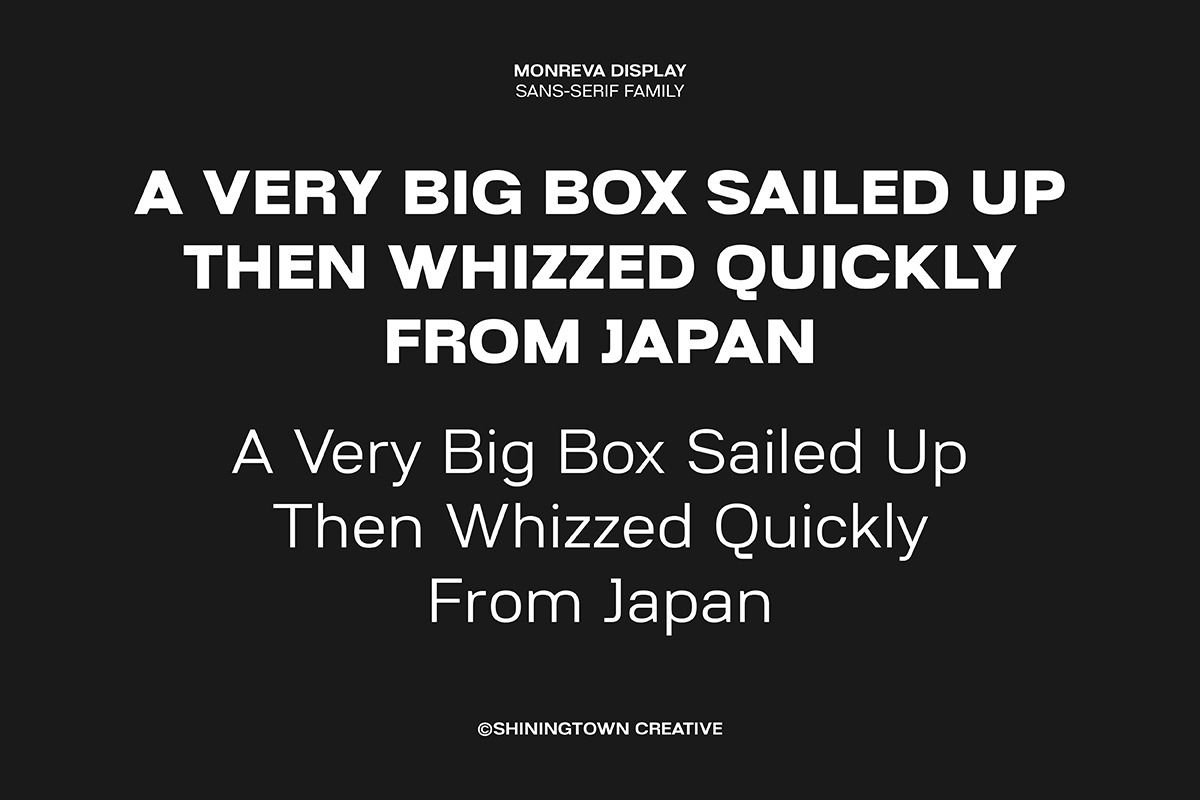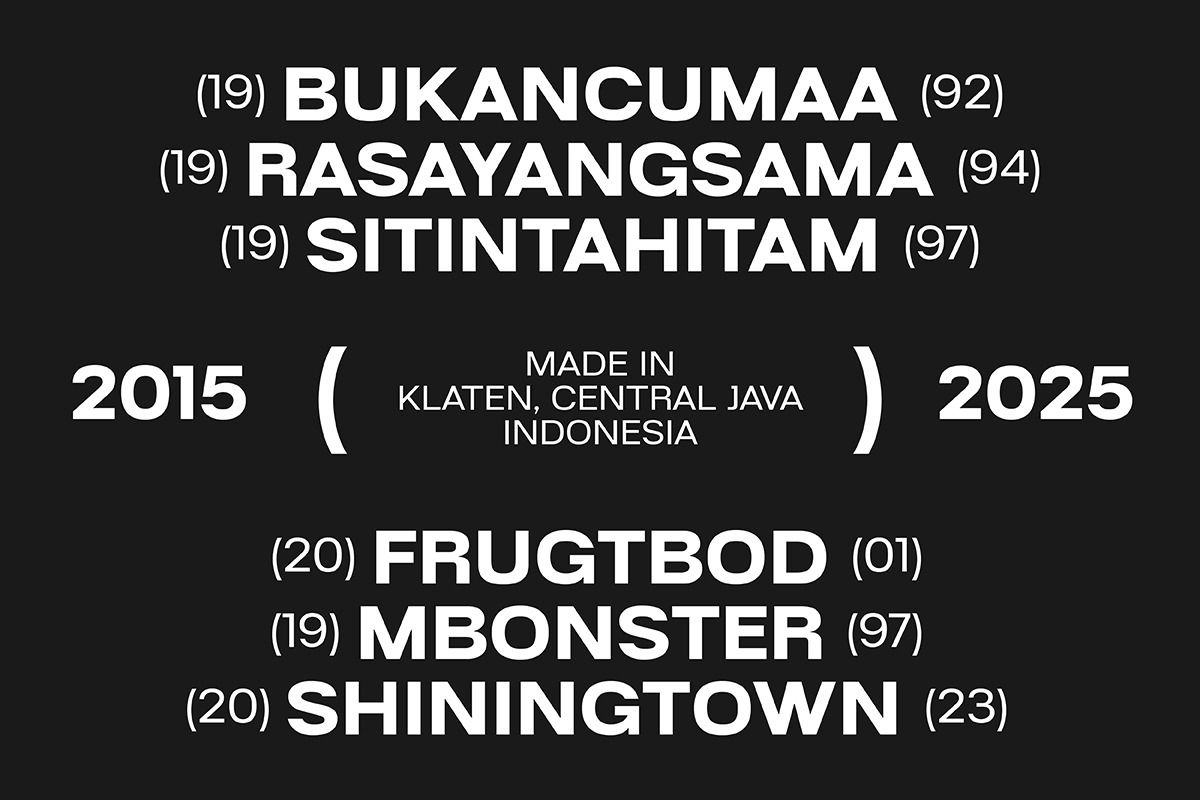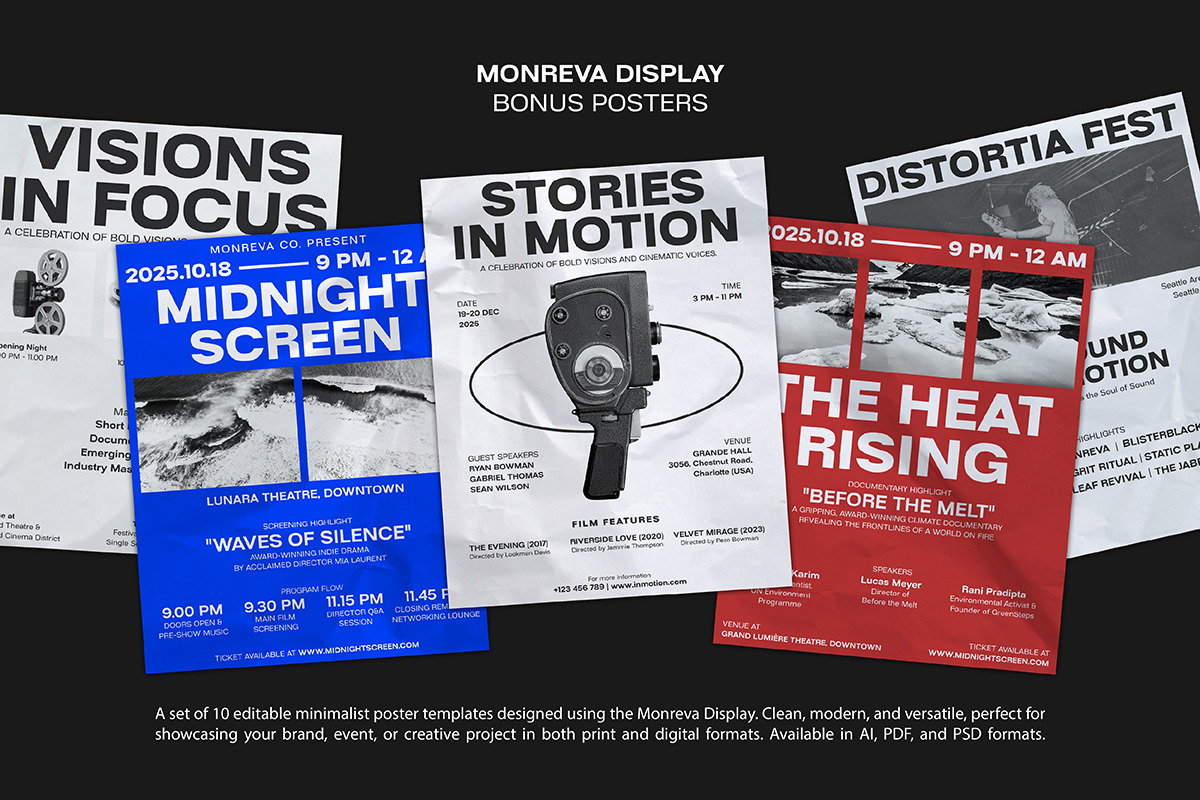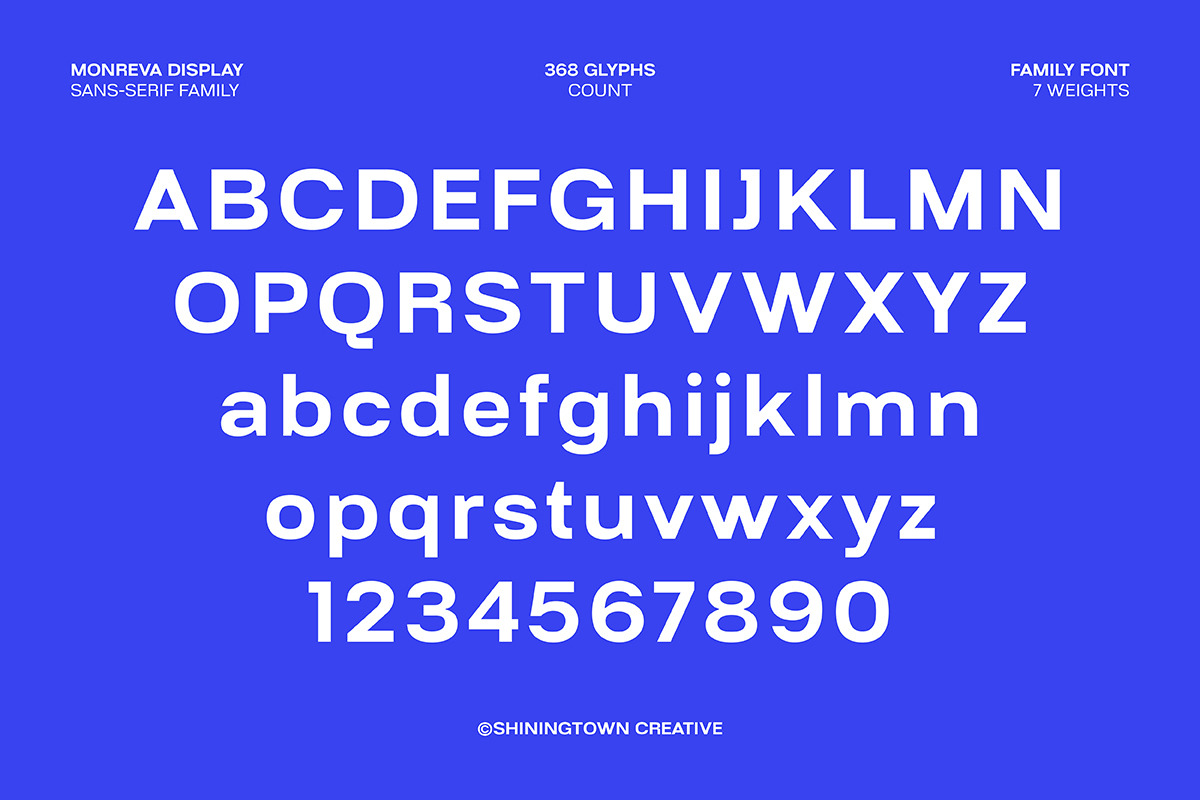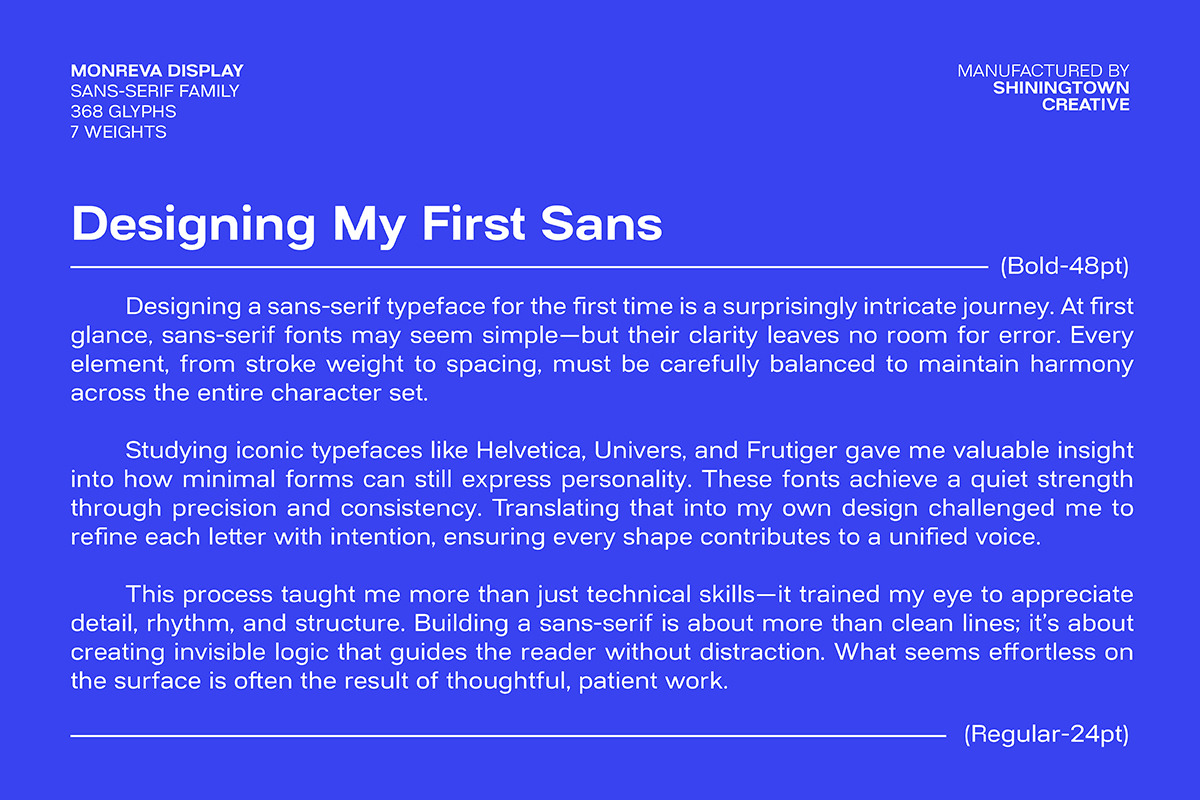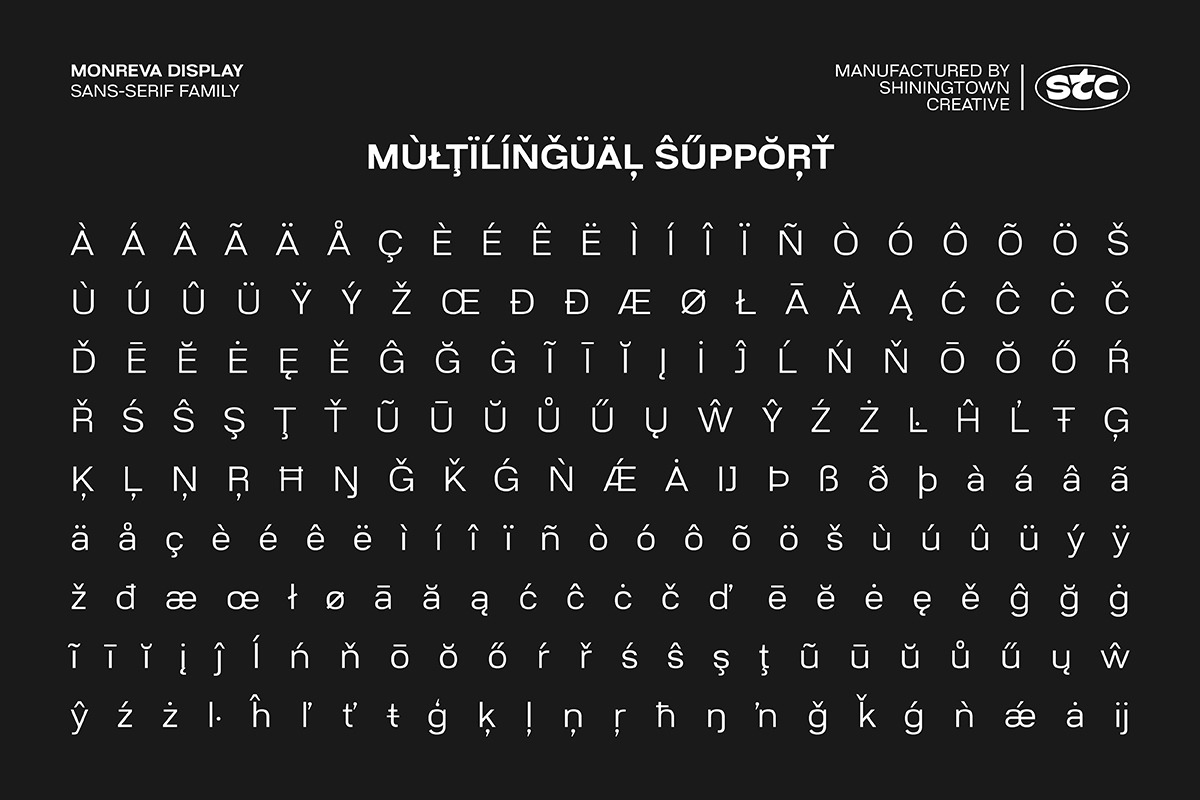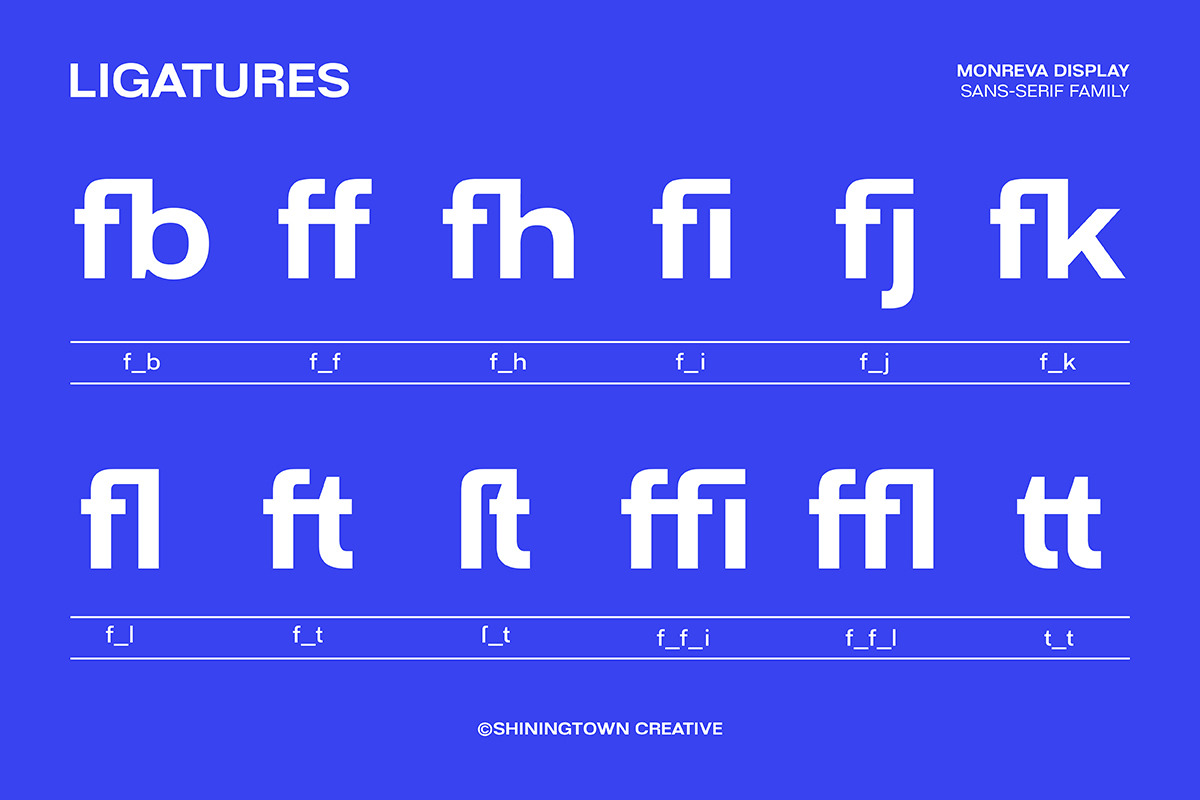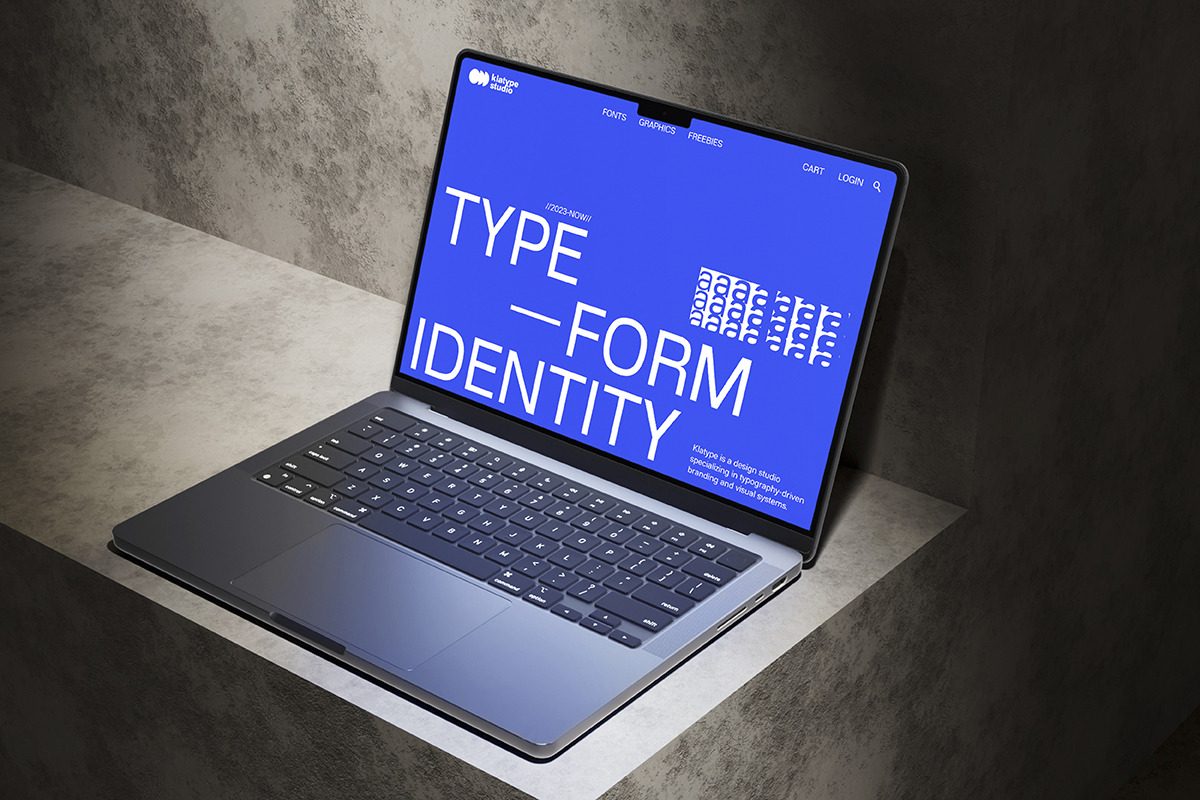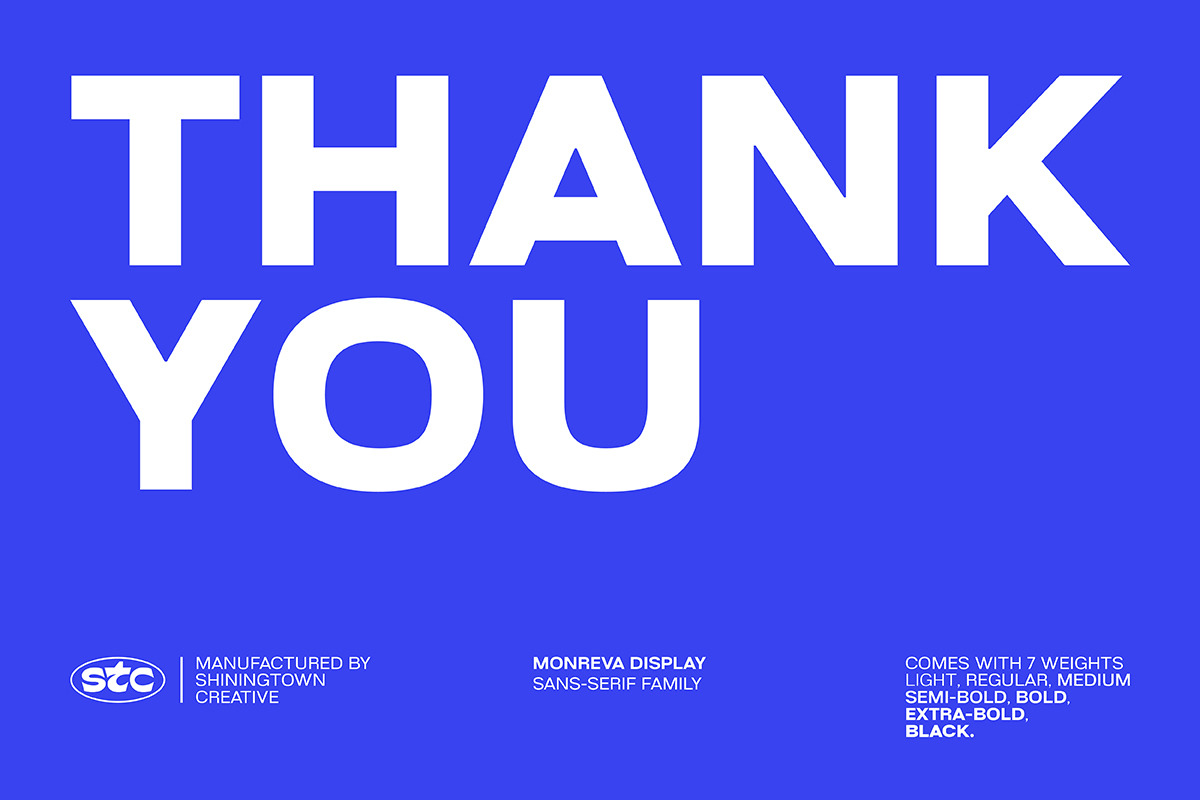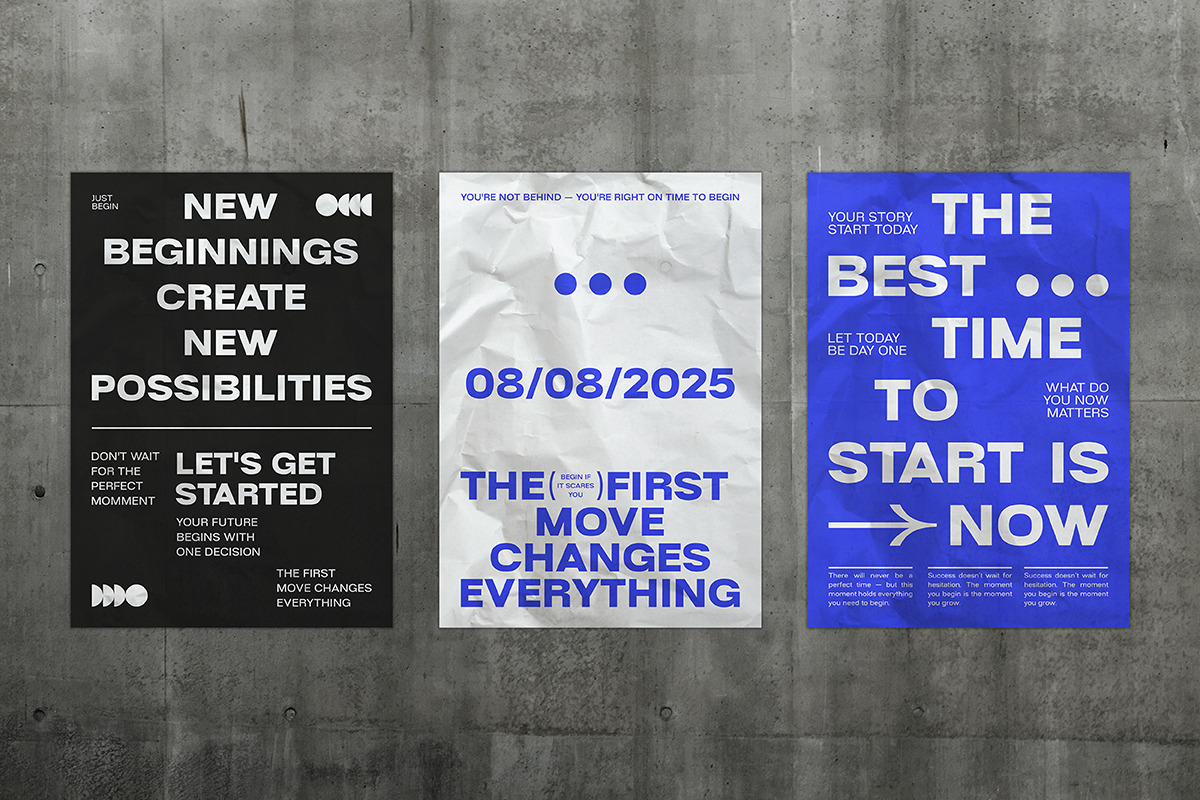
Monreva Display — 7 Weights (+Bonus)
Monreva Display explores the balance between geometric clarity and editorial rhythm. Crafted across 7 weights (Light–Black) with 368 glyphs, useful ligatures, and extended Latin support, it delivers consistent hierarchy from hero titles to compact labels.
To showcase practical use, the project includes 10 minimalist poster templates (AI/PSD/PDF) you can adapt for branding, exhibitions, and social campaigns. The family is built for designers who need a dependable display sans that stays crisp in both print and digital environments.